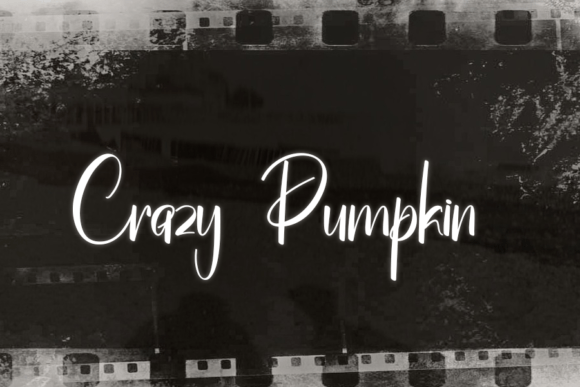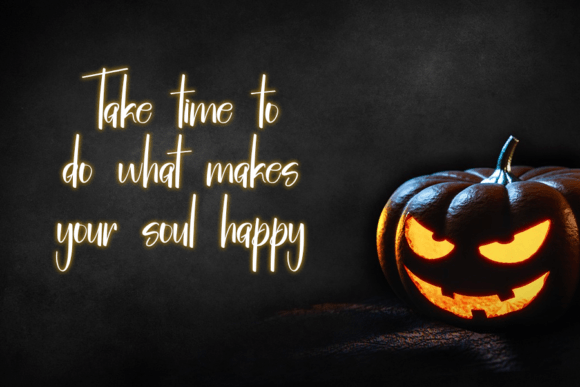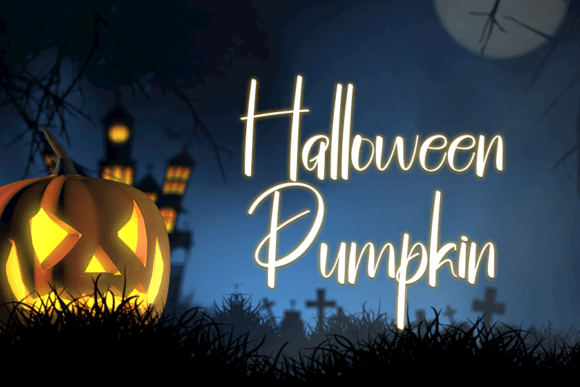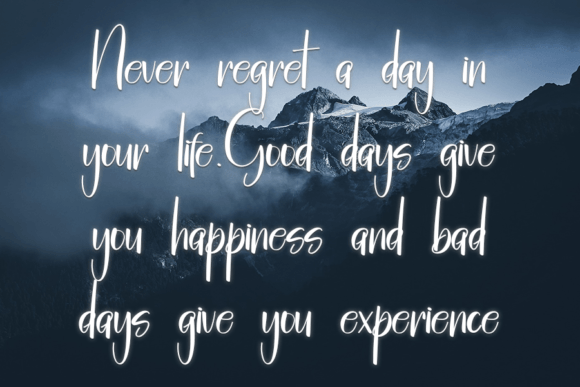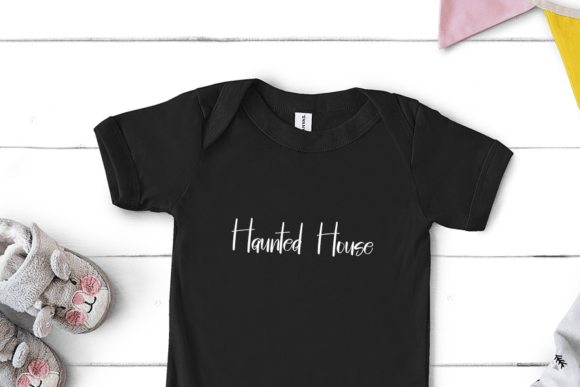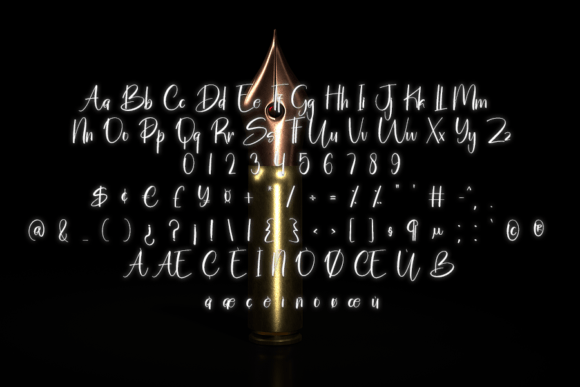
Unleash the Spookiness: Exploring the Haunted House Font
Are you a designer, crafter, or DIY enthusiast looking for a unique and cool font to add a touch of personality to your projects? Look no further than the Haunted House Font, a delicate handwritten font that is carefully crafted to bring a sense of eeriness and whimsy to your designs. In this article, we’ll dive into the world of Haunted House Font, exploring its features, uses, and benefits, as well as provide tips and inspiration for incorporating it into your creative projects.
What is Haunted House Font?
Haunted House Font is a beautiful, handwritten font that is designed to evoke the feeling of a spooky, yet charming, haunted house. With its delicate lines and whimsical flair, this font is perfect for adding a touch of personality to a wide range of projects, from letters and invitations to food products and titles. Whether you’re creating a DIY craft, a marketing campaign, or simply a personal project, Haunted House Font is sure to make your design stand out.
Features of Haunted House Font
So, what makes Haunted House Font so special? Here are just a few of its key features:
- Delicate Handwritten Style: Haunted House Font is a carefully crafted, handwritten font that features delicate lines and a whimsical flair.
- Unique and Cool Design: This font is designed to be cool and unique, making it perfect for designers and crafters who want to add a touch of personality to their projects.
- Versatile: Haunted House Font can be used for a wide range of projects, from letters and invitations to food products and titles.
- Easy to Read: Despite its delicate lines, Haunted House Font is easy to read, making it perfect for both digital and print projects.
Uses for Haunted House Font
So, what can you use Haunted House Font for? The possibilities are endless! Here are just a few ideas to get you started:
- Letters and Invitations: Add a touch of whimsy to your letters and invitations with Haunted House Font.
- Food Products: Use Haunted House Font to create spooky-sweet labels for your food products, such as Halloween treats or specialty foods.
- Titles and Headings: Add a touch of personality to your titles and headings with Haunted House Font.
- DIY Crafts: Use Haunted House Font to add a personal touch to your DIY crafts, such as signs, banners, and other decorations.
Tips for Using Haunted House Font
Here are a few tips for getting the most out of Haunted House Font:
- Pair with Other Fonts: Experiment with pairing Haunted House Font with other fonts to create a unique and interesting design.
- Use in Moderation: While Haunted House Font is beautiful, it can be a bit delicate. Use it in moderation to avoid overwhelming your design.
- Experiment with Colors: Haunted House Font looks great in a range of colors, from bold and bright to muted and pastel.
Inspiration for Your Next Project
Still looking for inspiration? Here are a few ideas for your next project:
- Create a Spooky Invitation: Use Haunted House Font to create a spooky invitation for a Halloween party or haunted house event.
- Design a Haunted House Sign: Use Haunted House Font to create a sign for a haunted house or spooky attraction.
- Make a Spooky Food Label: Use Haunted House Font to create a label for a spooky food product, such as a Halloween treat or specialty food.
In conclusion, Haunted House Font is a unique and versatile font that is perfect for designers, crafters, and DIY enthusiasts who want to add a touch of personality to their projects. With its delicate lines, whimsical flair, and easy-to-read design, Haunted House Font is sure to make your design stand out. Whether you’re creating a spooky invitation, a haunted house sign, or simply a personal project, Haunted House Font is the perfect choice. So why wait? Download Haunted House Font today and unleash the spookiness in your designs!